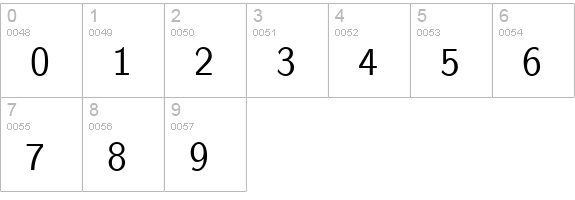
Nova Regular Font Details
Nova Regular is the standard, neutral variant in the Nova typeface family \xE2\x80\x94 well suited to general body text, paragraphs, and standard typographic work.
Nova Regular is a versatile and modern sans-serif font that exudes elegance and sophistication. With its clean lines and balanced proportions, this typeface is perfect for a wide range of design projects, from branding and packaging to editorial and web design. The versatility of Nova Regular makes it suitable for both headlines and body text, ensuring readability and visual impact in any context. What sets Nova Regular apart is not only its sleek design, but also its accessibility. This font is available for free download at FontsMarket.com, making it easily accessible to designers and creatives looking to elevate their work with a high-quality typeface. Whether you're a seasoned professional or just starting out, Nova Regular offers a polished and professional look that will enhance any project. Don't miss out on the opportunity to add this stylish font to your collection – download Nova Regular for free today at FontsMarket.com.